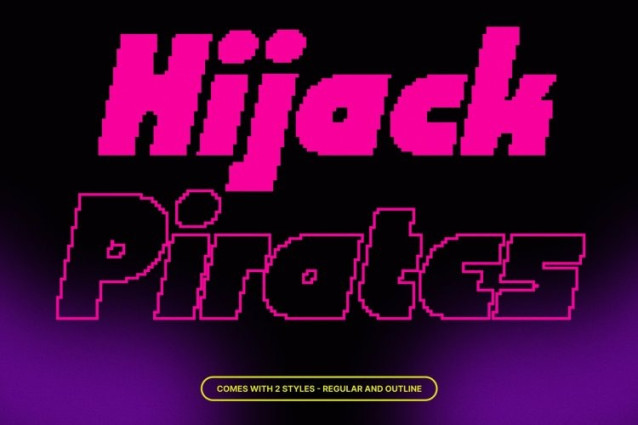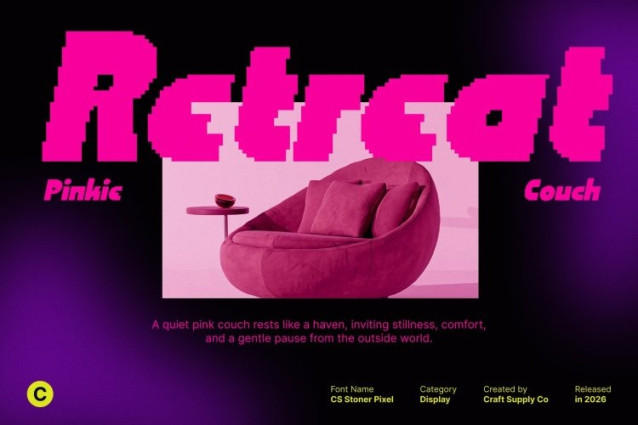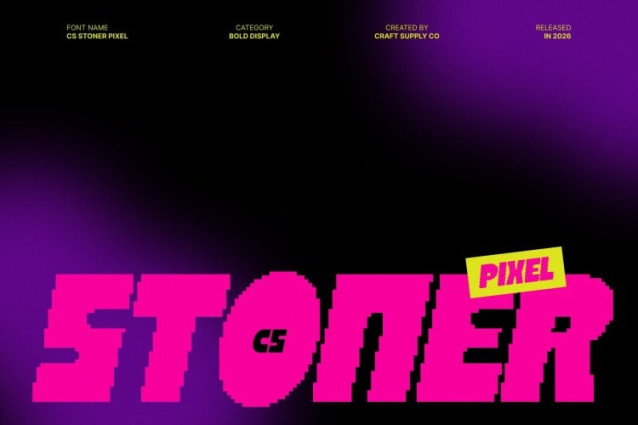
CS Stoner Pixel Font
CS Stoner Pixel Font This is a bold sans serif display font built from blocky, geometric forms and a striking pixel structure. Inspired by industrial design and digital construction, it combines raw strength with modern precision. The pixel styling gives the font a rugged, mechanical feel while introducing a distinct digital character that feels assertive, solid, and visually commanding.
Geometric Pixel Forms for Maximum Impact
Each letter is crafted with sharp angles, squared proportions, and structured pixel details that reinforce its powerful presence. The strong geometry ensures every character feels engineered and deliberate, making the font ideal for large-scale typography. Headlines, posters, and titles benefit from its bold silhouette and high visibility, even from a distance.
Industrial Attitude with Digital Edge
This font balances its heavy industrial backbone with a clean, modern digital aesthetic. The pixel treatment adds a subtle retro-tech and futuristic vibe, making the font suitable for creative expression across contemporary and experimental designs. It works especially well for streetwear branding, band merchandise, tech visuals, and bold editorial layouts.
Versatile Display Font with Strong Identity
Designed for impactful communication, CS Stoner Pixel excels in projects that demand confidence and memorability. From branding and logos to event posters and digital graphics, its combination of geometric precision, industrial toughness, and pixel-driven style ensures every message feels bold, modern, and unmistakably powerful.